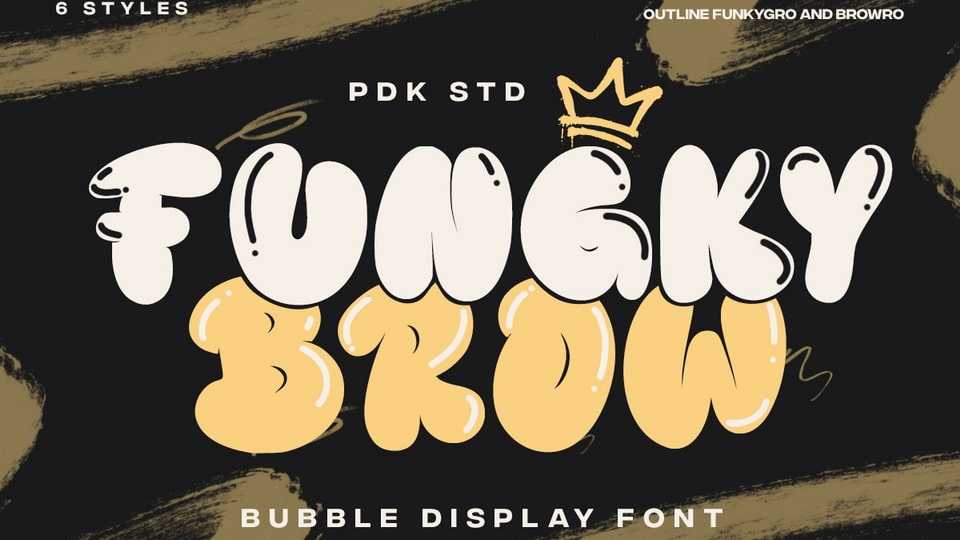
Download Funky Brow font, a lively bubble graffiti typeface that injects energy and personality into your designs and brings a fresh twist to bubble-inspired typography.